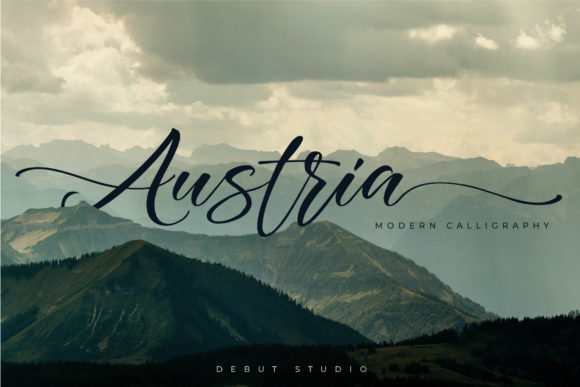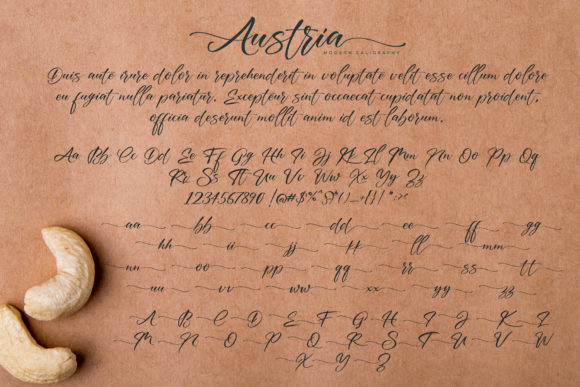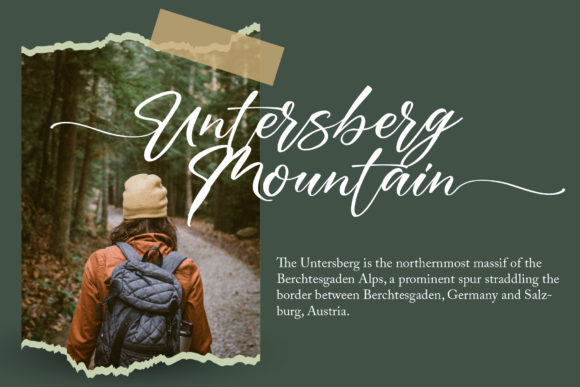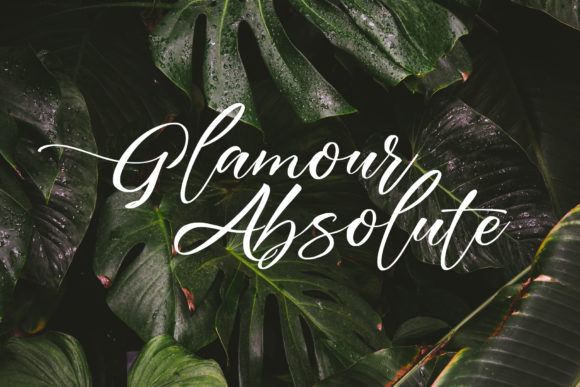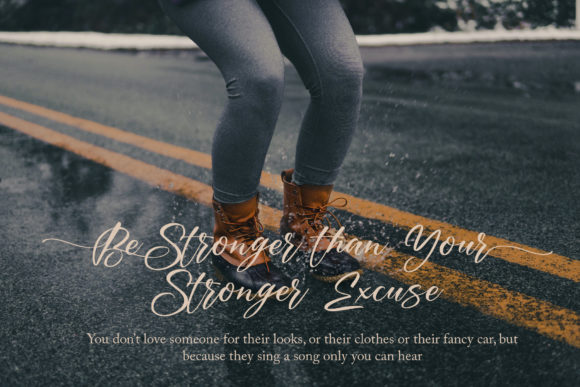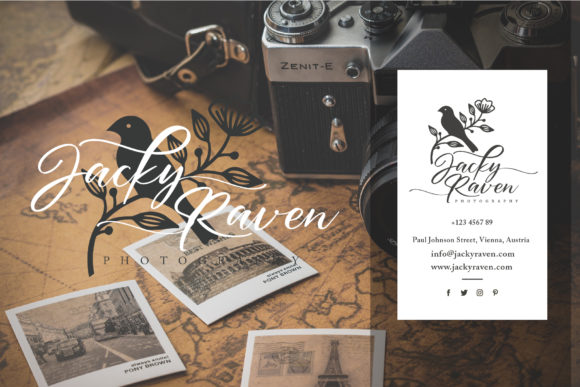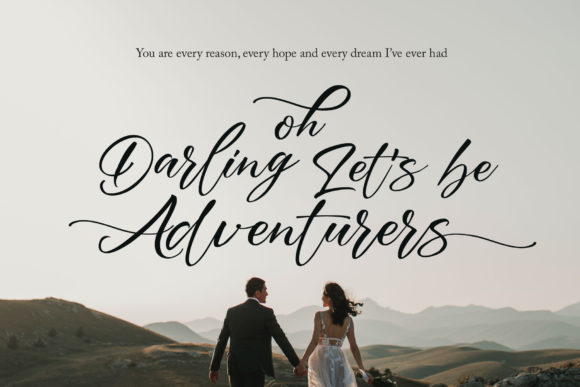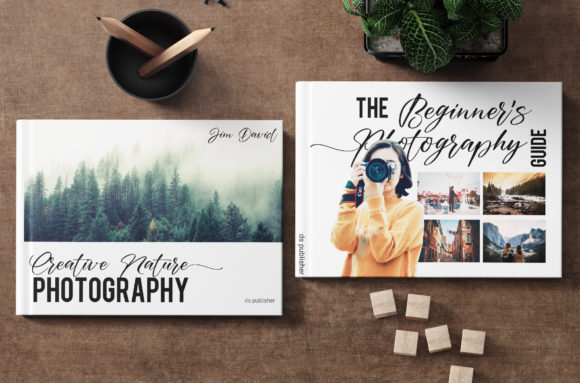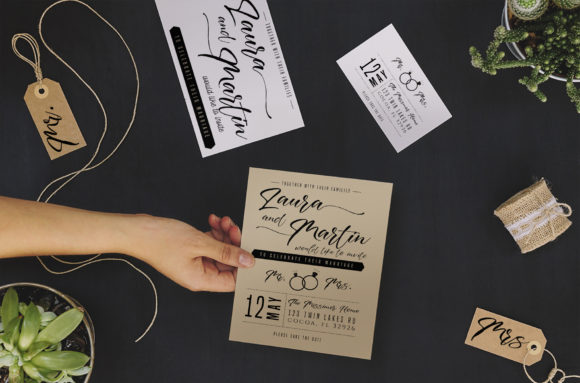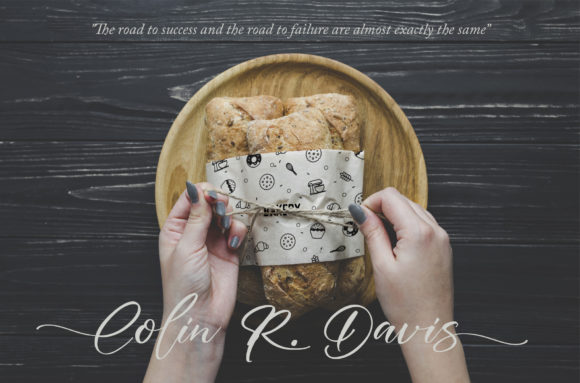
Austria Font
About Austria Font
Austria is an elegant and flowing handwritten font. It is PUA encoded which means you can access all of the glyphs and swashes with ease! It features a varying baseline, smooth lines, gorgeous glyphs and stunning alternates. It maintains its classy calligraphic influences while feeling contemporary and fresh. Fall in love with Austria and bring your projects to the highest levels!